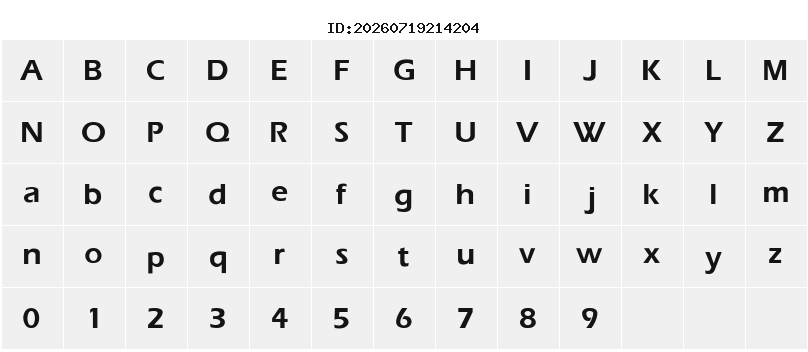
• Font Name: Eric Black
• Full Font Name: Eric Black
Eric Black.ttf is a modern, elegant sans-serif font designed for ultimate readability and visual harmony. Perfect for branding, headlines, web design, and print materials.